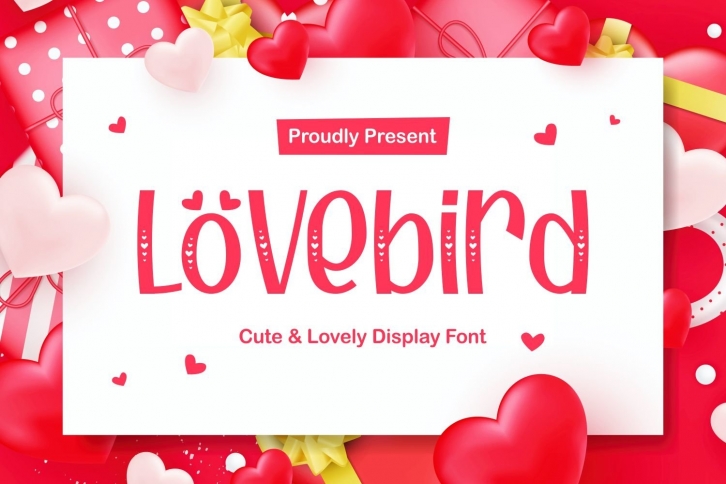
Lovebird is a great font that was designed by Design Bundles Store. Imagine the amount of combinations you can create using this font! The archive is 8.19 MB and it was released on June 22, 2020. Lovebird looks beautiful on wedding invitations, greeting cards, logos, posters, labels, t-shirt designs, logos, business cards and is perfect for use in ink or watercolor works, fashion, magazines, packaging and food menus, children's books and more!